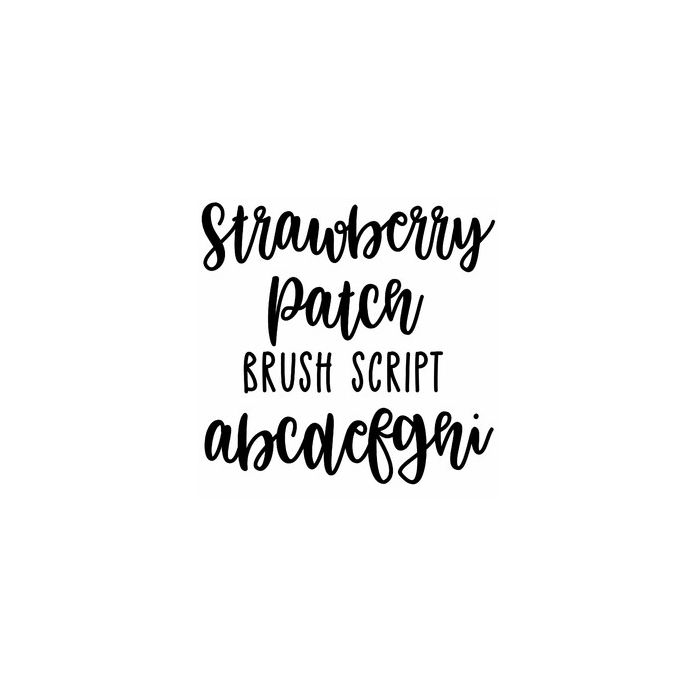
Strawberry patch brush script font
Pretty brush script handwriting font for Easter crafts, monograms, wedding, signs, birthday, cards, labels, and personalization projects